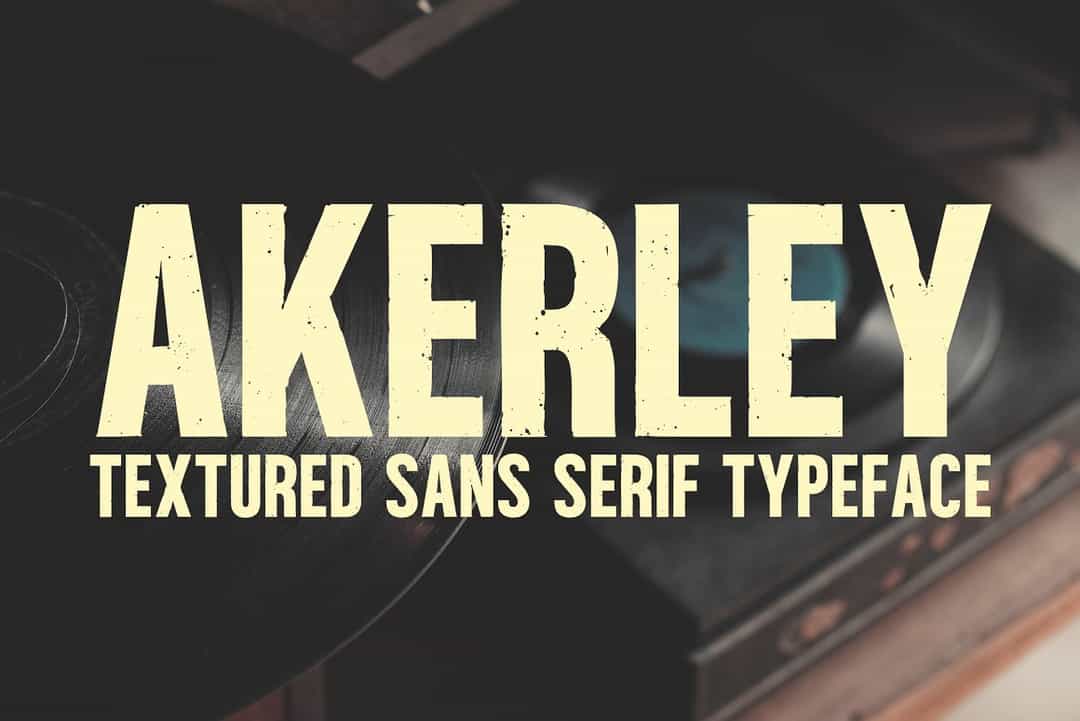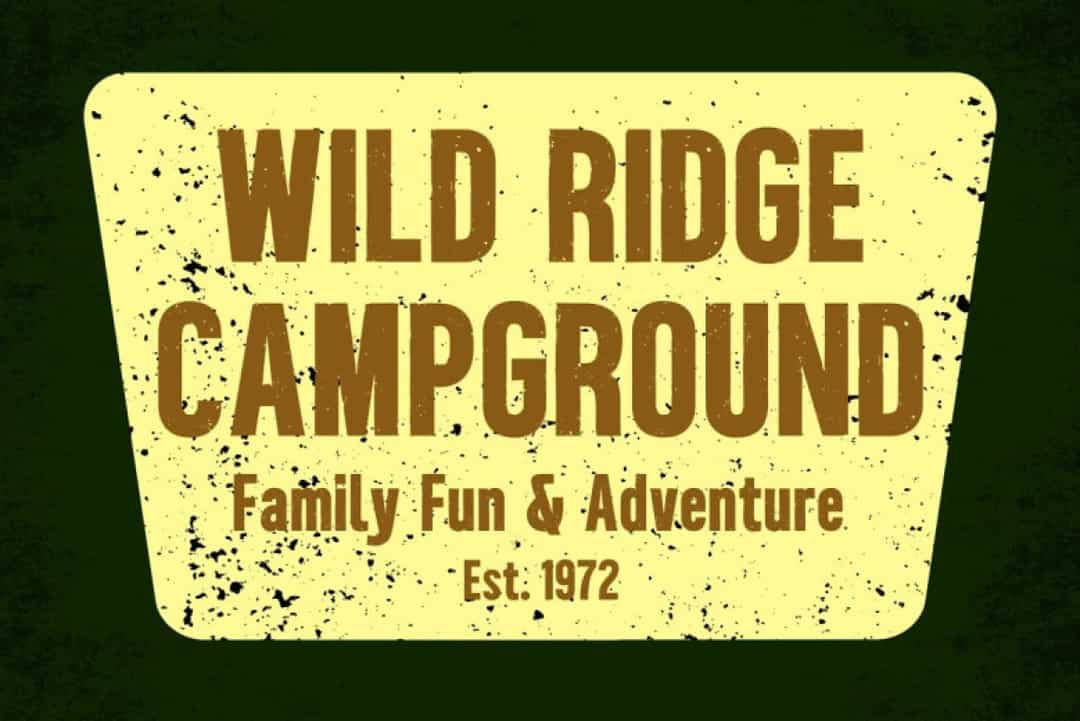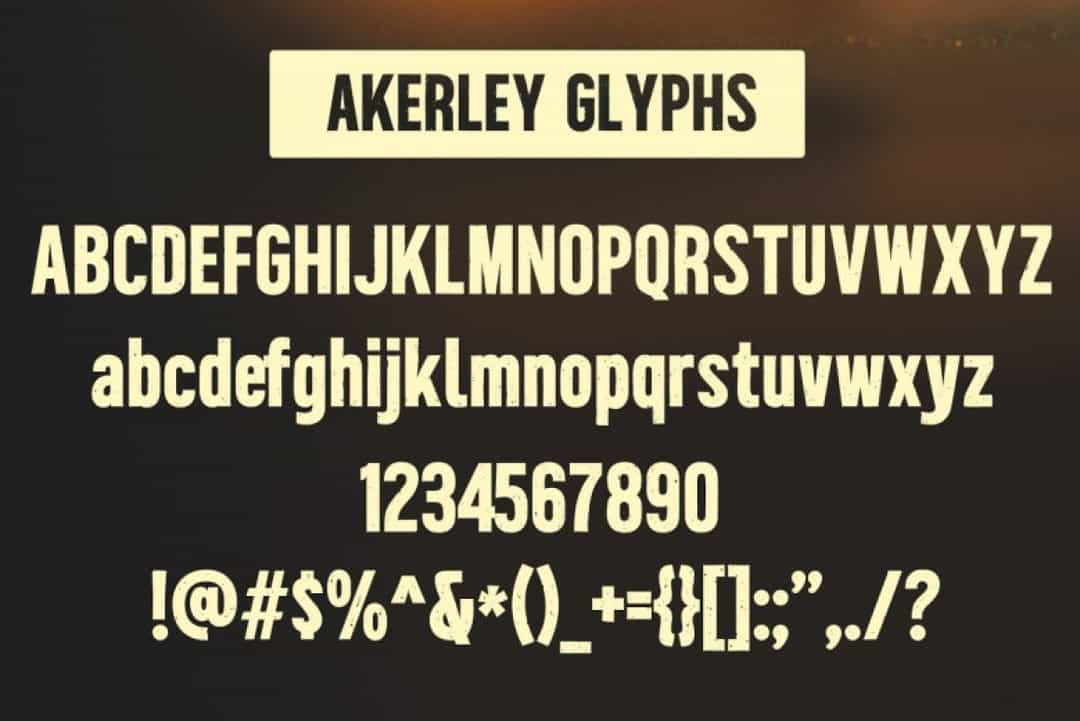
Discover Akerley Font, part of the Sans Serif collection—a versatile and unique font perfect for adding a personal touch to your projects. Download it for free and enjoy crafting designs with style, from invitations to social media posts. This font is available exclusively for personal use, giving you the freedom to create without limits. Unlock your creativity with Akerley Font today!
Akerley font is an elegant vintage-inspired tactile sans serif font perfect for branding, apparel titles, headlines and titles. Akerley boasts its gritty yet hand-crafted aesthetic while remaining highly visible; making it a versatile option to suit artistic projects of any kind. Akerley comes equipped with a complete character set supporting multilingual usage; enhance your work today by adopting this inspiring font!